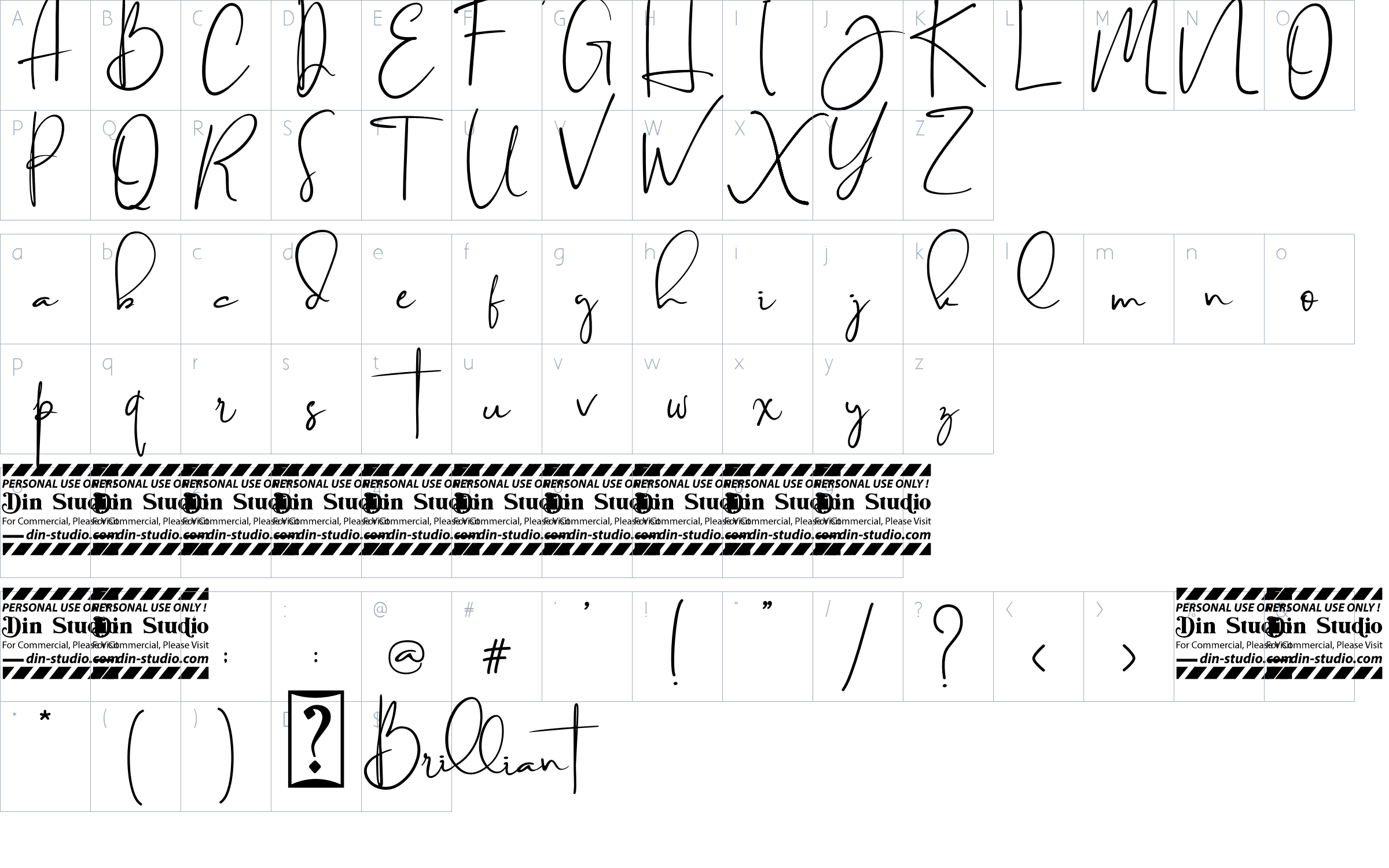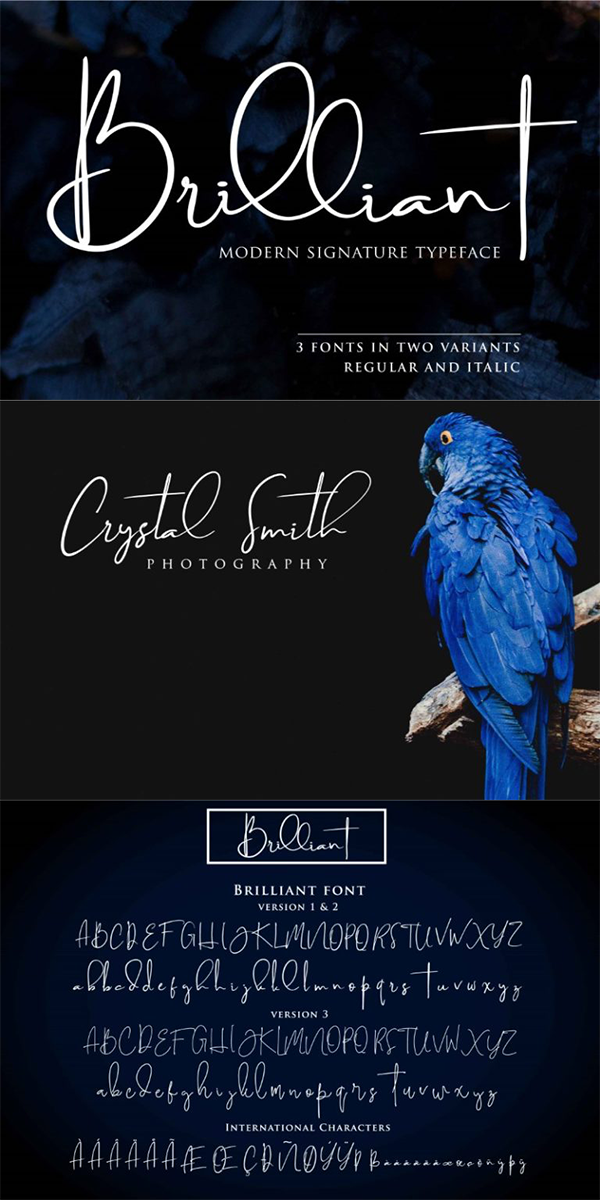
Brilliant Font
About Brilliant
Brilliant Signature is a modern signature typeface created by Din Studio. It is perfect for any signatures, name card designs, branding projects, product packagings, quotes, logos, book covers, and other awesome projects. With the combination of elegant and casual styles, this font contains a full set of lowercase and uppercase letters, numerals, punctuations, and ligatures.
-Stylistic Alternates and Ligatures
-Character Sets A-Z
-Numerals and Punctuation (OpenType Standard)
-Accents (Multilingual Characters)